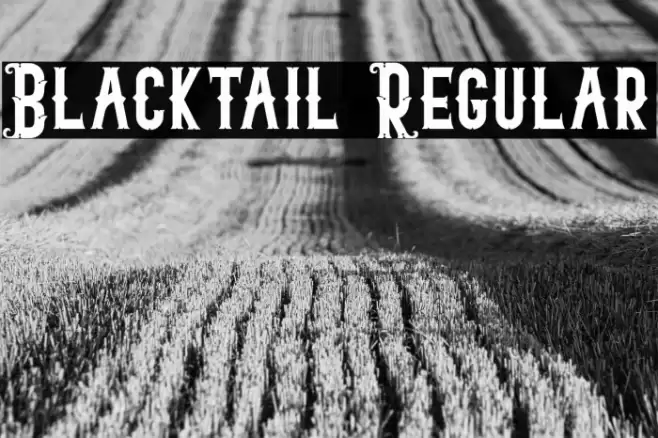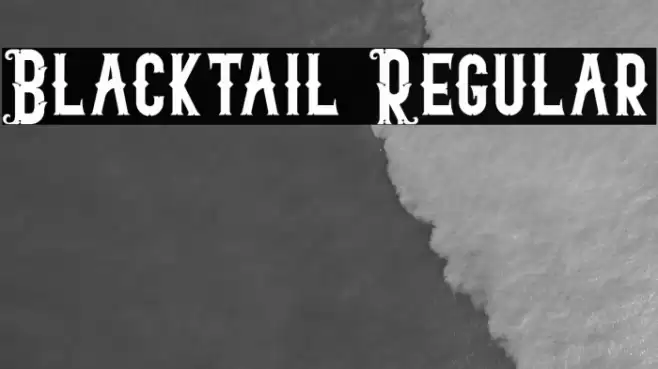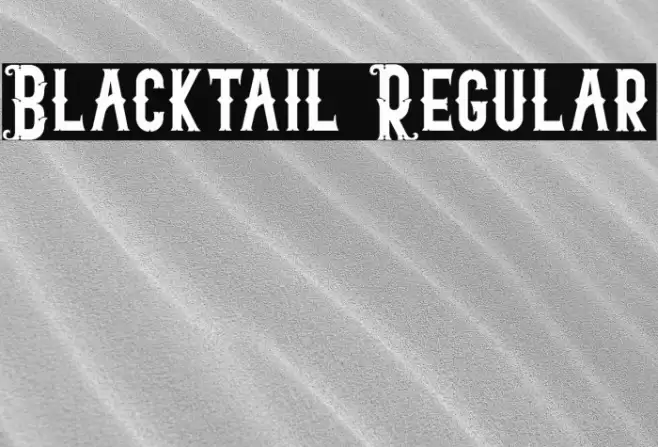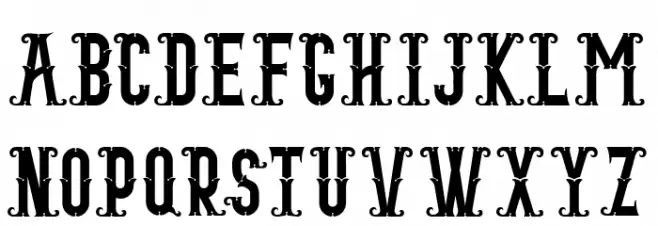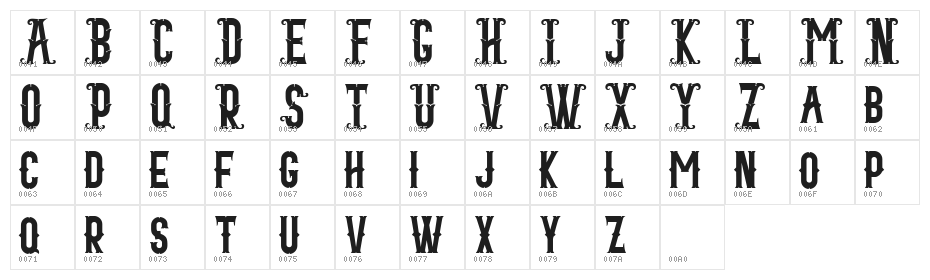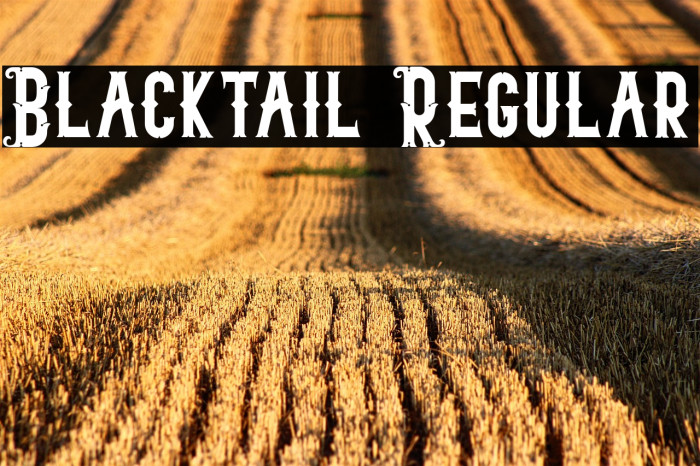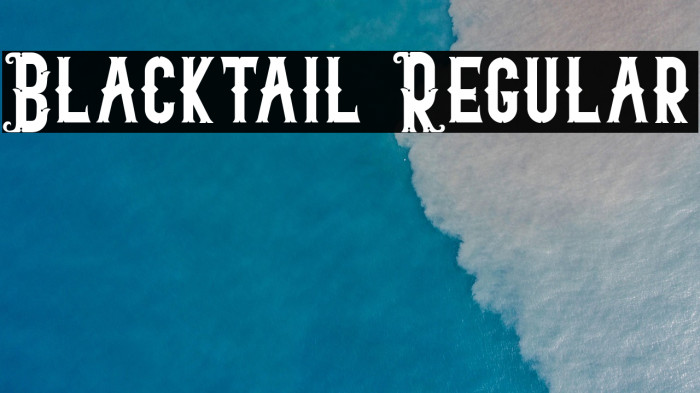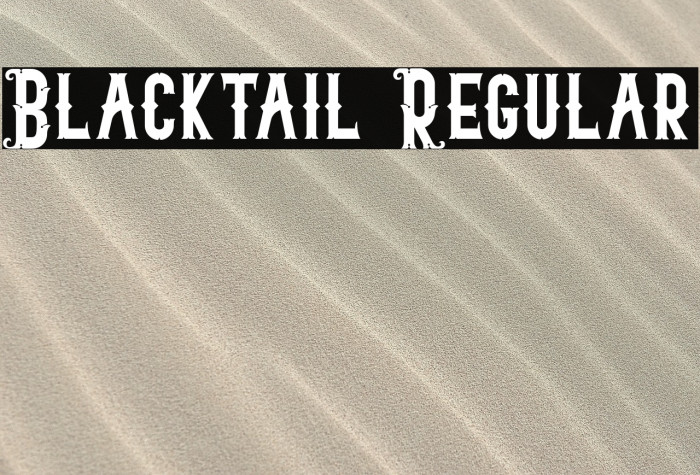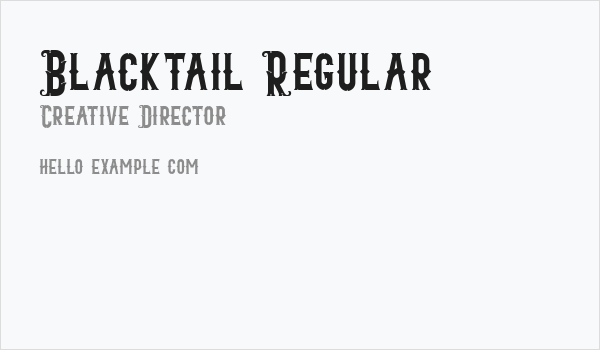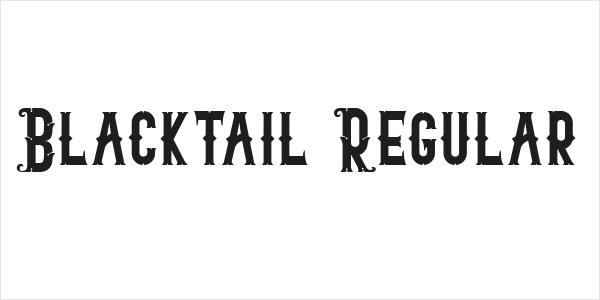
Blacktail Regular Font
Blacktail Regular Description
This font features a bold, decorative style with intricate detailing on each character. The uppercase letters are characterized by their ornate serifs and unique embellishments, giving them a vintage, western-inspired appearance. The lowercase letters maintain the same decorative flair, ensuring consistency throughout the typeface. The numbers and special characters are equally stylized, making this font suitable for eye-catching designs. Its bold weight and high contrast between thick and thin strokes enhance its visibility and impact.
A bold, decorative font with vintage, western-inspired detailing from Regular fonts.
- Proposed Projects: Ideal for posters, logos, branding, and any design requiring a strong, decorative typeface.
- Overall Style: Vintage, Decorative